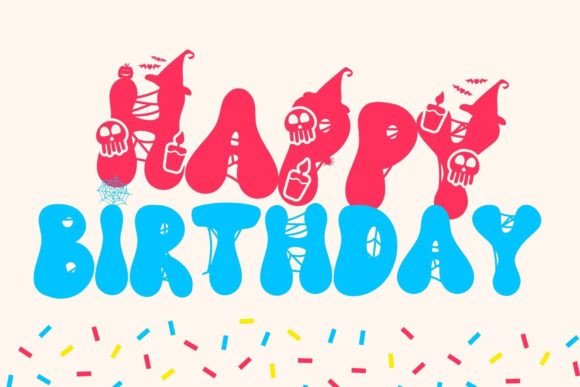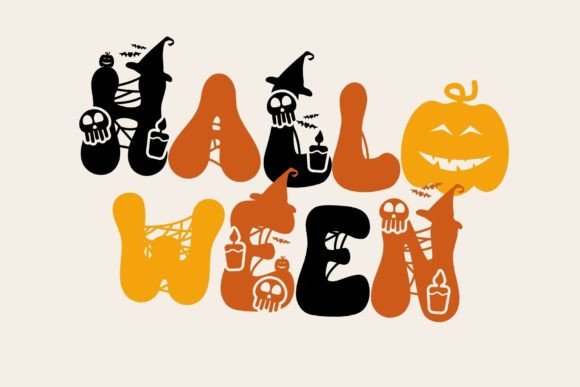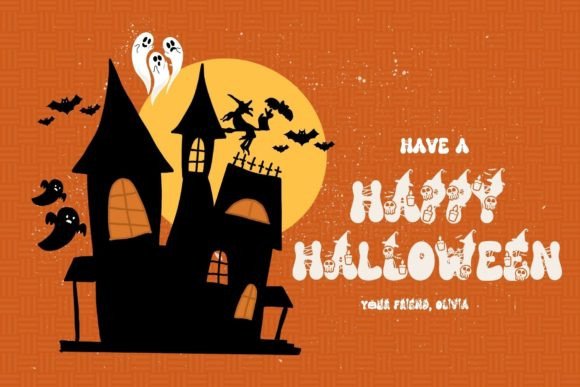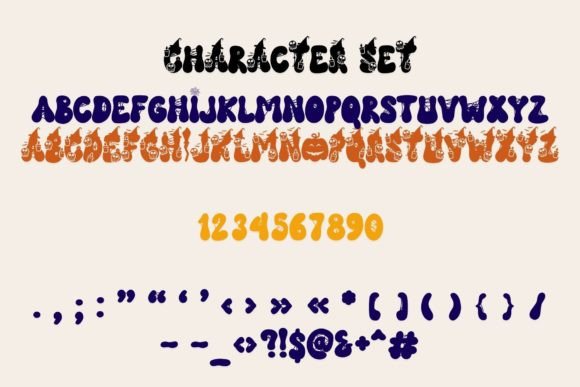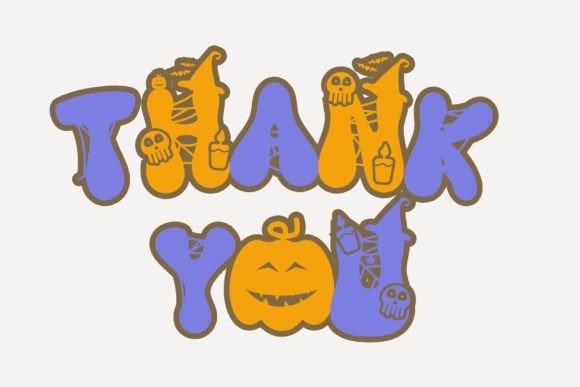
The Spooky Charm of Full Moon Font: A Designer’s Delight
I’ll never forget the time I was working on a Halloween-themed project for a client, and I just couldn’t find the right font to capture the spooky essence of the season. The client wanted something that would make their invitations, posters, and social media posts stand out, but I was stuck in a design rut. That was until I stumbled upon the Full Moon Font, a cool Halloween decorative font that instantly transported me to a world of horror and mystery.
A Personal Review of Full Moon Font
As a designer, I was immediately drawn to the unique and eerie charm of Full Moon Font. Here’s what I love about it:
- ✨ The additional elements of blood dripping and bones-like letters add a level of horror and ambiance to any design project.
- ✅ The font is incredibly versatile and can be used in a variety of settings, from invitations and postcards to posters and headings.
- 💀 The font’s Halloween theme is perfect for seasonal designs, but it’s also edgy enough to be used in other contexts, like horror-themed branding or packaging.
Of course, no font is perfect, and Full Moon Font has a few quirks:
- 🤔 The font can be a bit tricky to read at smaller sizes, so it’s best used for display purposes or larger text.
- ⚠️ Some of the special characters and glyphs can be a bit finicky, but with a little practice, you’ll get the hang of it.
A Practical Guide to Using Full Moon Font
The Backstory of Full Moon Font
Legend has it that Full Moon Font was inspired by the creepy and abandoned asylums of the American countryside. The font’s designer, a mysterious and reclusive artist, was fascinated by the horror and mystery of these abandoned buildings and decided to create a font that would capture their essence.
| What is the best way to use Full Moon Font? | The best way to use Full Moon Font is for display purposes, such as headings, titles, and invitations. |